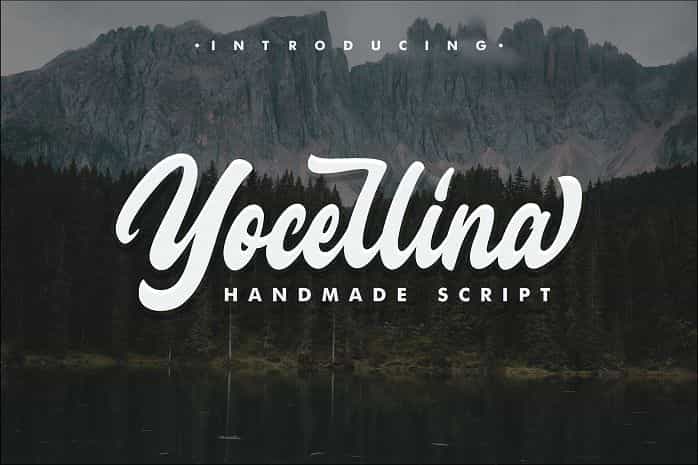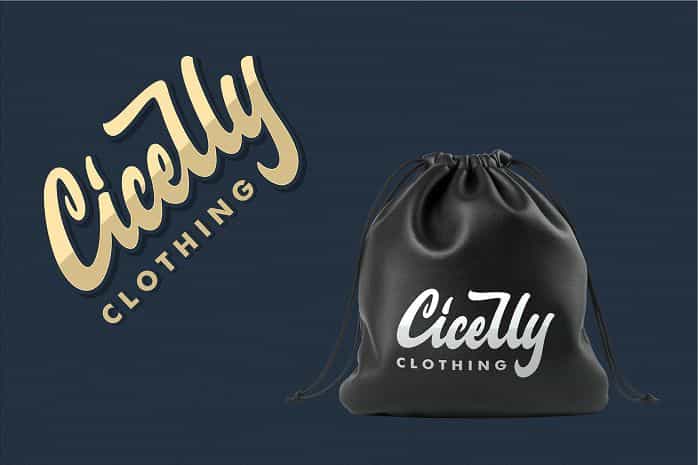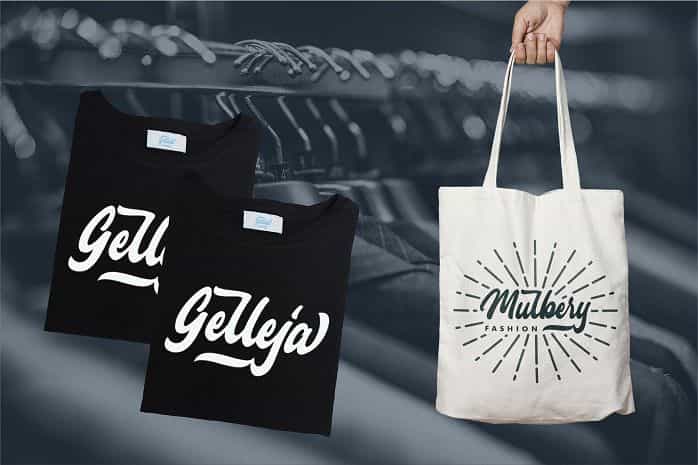
Introducing Yocellina Font. Yocellina was created and shared by MouzeType. Yocelina is a hand lettering script style font. The Yocelina font is perfect for Branding, Logo Design, Lettering,Logotype, Clothing, Poster,magazine and other design projects. Yocelina font is accompanied by uppercase, lowercase, numerals, punctuations and variations on each characters include opentype alternates, common ligatures.